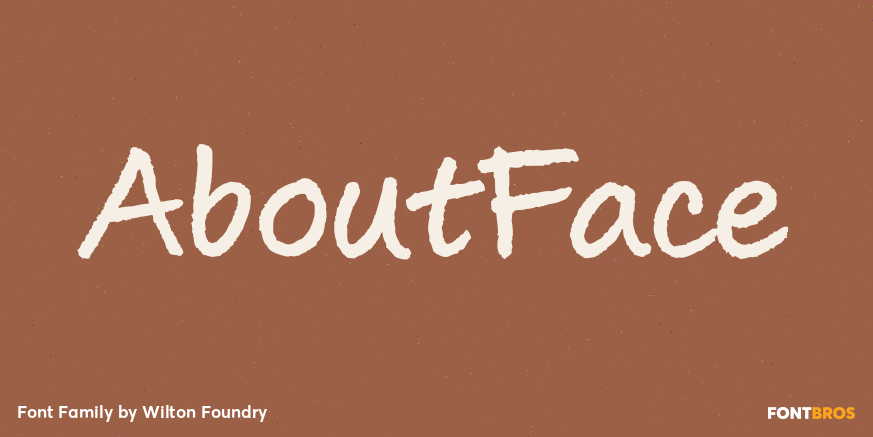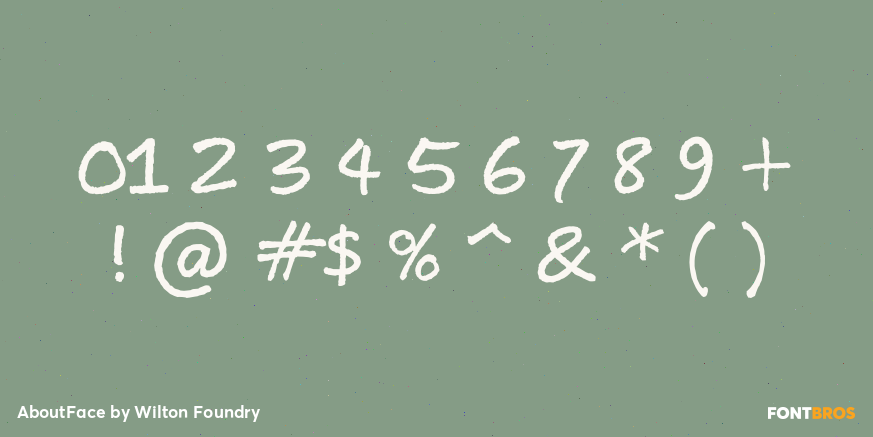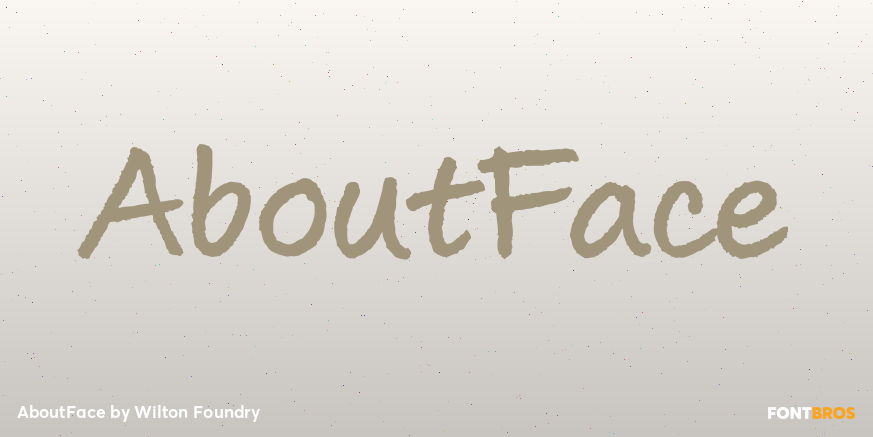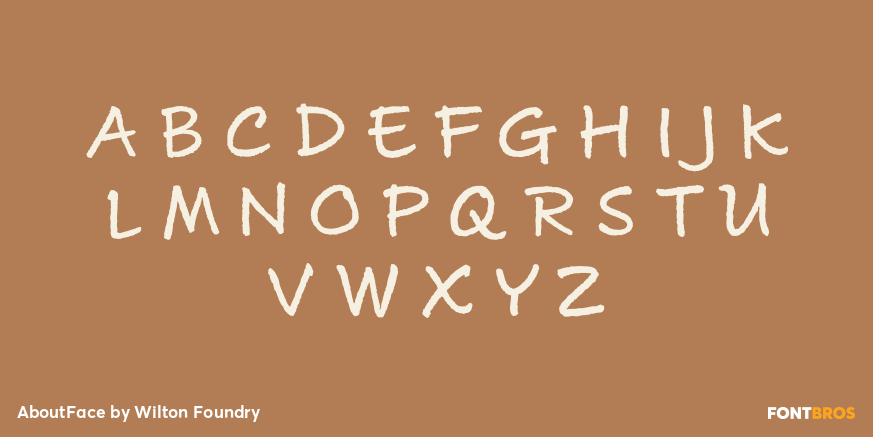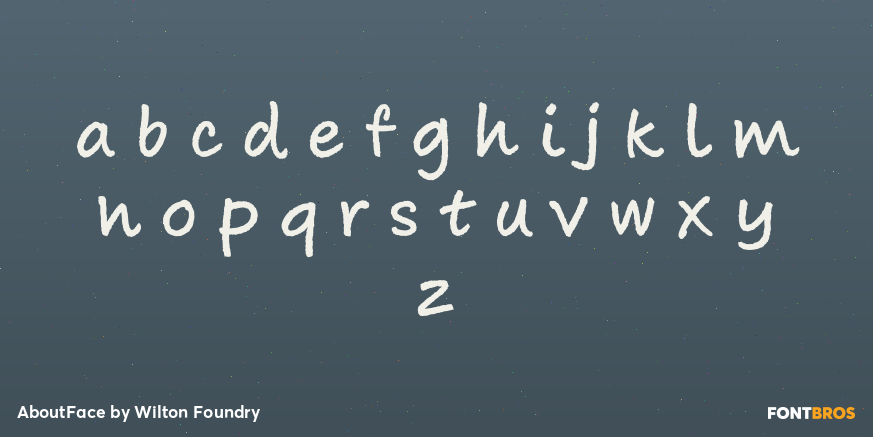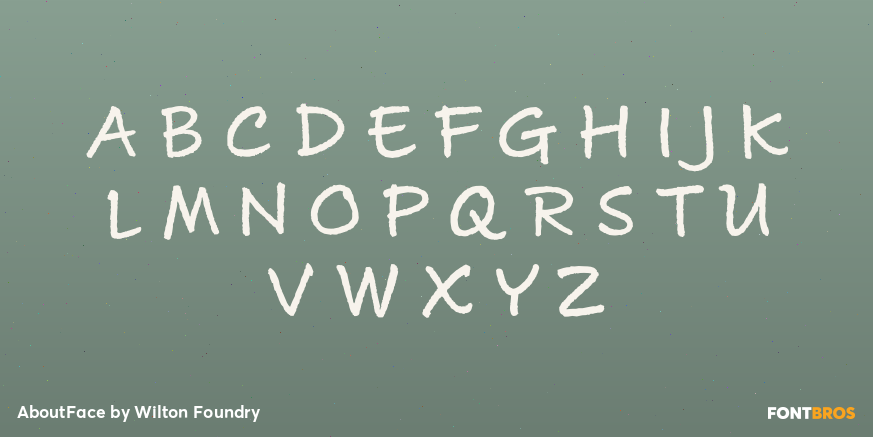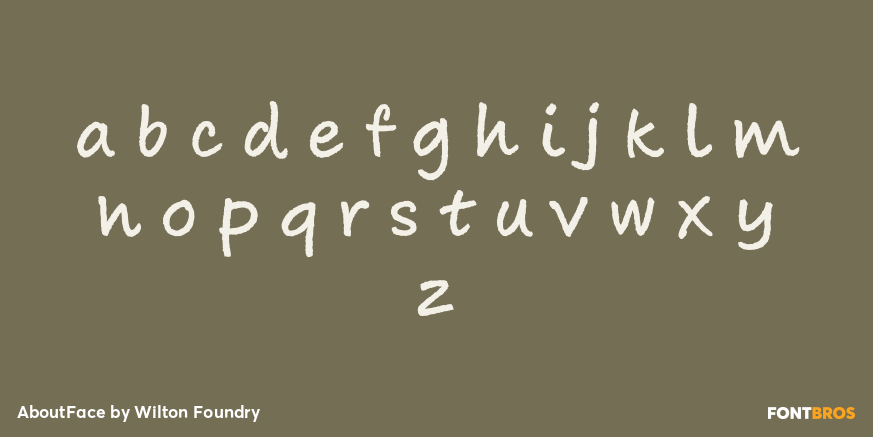
AboutFace
Font Family by Wilton Foundry
AboutFace is a casual script family with a handwritten feel, giving layouts an easy, personal style that reads as relaxed rather than overly polished. Its flowing strokes and informal character make it a natural fit for work that needs warmth, movement, and a more human touch.
Offered by Wilton Foundry as a 2-style family, it includes Aboutface Regular and Aboutface Thin. That pairing gives you a little range for dialing the look from slightly fuller to more delicate while keeping the same loose, conversational voice.
Use it where expressive lettering can do the heavy lifting: branding, packaging, invitations, posters, social graphics, apparel, and other display pieces that benefit from a casual script presence.